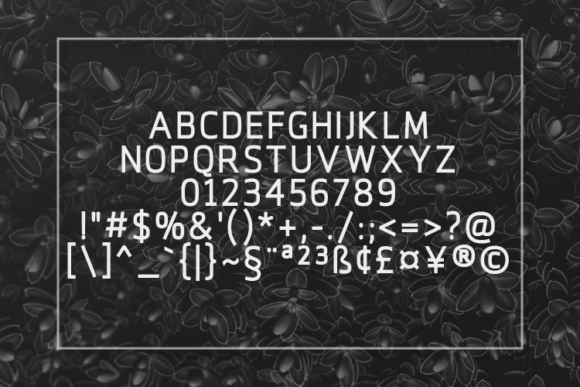
Introduction to Hunte Extra Bold Font
Have you ever stared at a blank page, waiting for the perfect font to bring your creative project to life? I’m sure many designers can relate to that moment of frustration, only to have it transformed into excitement when the right font is finally found. That’s exactly what happened when I stumbled upon the Hunte Extra Bold Font. Its sleek and modern design made me think of a blank canvas waiting for a masterpiece to be created.
As a design enthusiast, I was immediately drawn to the Hunte Extra Bold Font’s clean and geometric look, which exudes a sense of sophistication and elegance. This high-quality font is perfect for designers looking to add a touch of sophistication to their projects, whether it’s a publishing title, a book cover, or a corporate design. With its transparent background and versatile design, the Hunte Extra Bold Font is a valuable resource for any creative project.
Key Features of Hunte Extra Bold Font
- High-quality, professional font suitable for various creative projects, including logos, branding, and design materials.
- Features a transparent background, allowing for seamless integration into various design elements and backgrounds.
- Designed to be highly legible, with clear and distinct letterforms that make it perfect for use in print and digital media.
Honest Review: Hunte Extra Bold Font
I recently stumbled upon the Hunte Extra Bold Font and I must say it’s been a great addition to my design resources. The font is perfect for any creative project that requires a high-quality, bold font.
Here are some things that work well with this font: ✨
- The font is highly customizable, allowing you to adjust the size, color, and even add a transparent background to suit your design needs.
- It’s incredibly versatile and can be used for a wide range of design projects, from brochures to business cards.
- The font may not be suitable for projects that require a lot of fine-tuning, as it can be a bit difficult to adjust.
- It’s not ideal for use in small text sizes, as it can be difficult to read.
Overall, I’m impressed with the Hunte Extra Bold Font. It’s a high-quality design resource that’s perfect for any creative project. While it may have a few limitations, the benefits far outweigh the drawbacks.
The Hunte Extra Bold Font is perfect for a variety of creative projects, including:
– Social media graphics and advertisements
– Presentations and reports
– Logos and branding materials
– Typography-based designs and posters